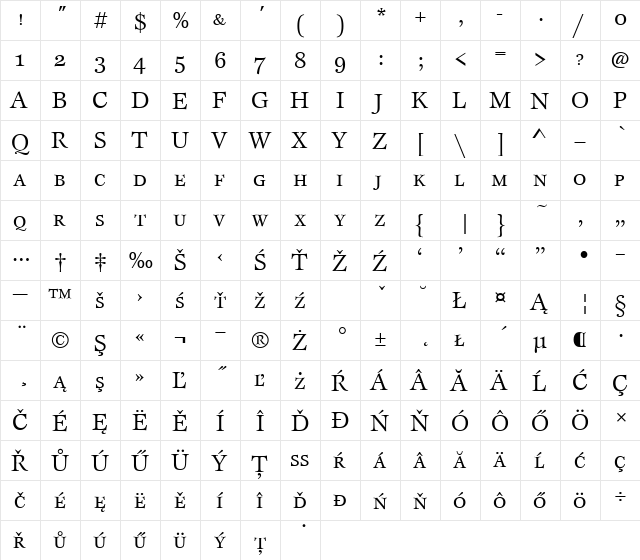
EspriItcSCTEEBoo Regular Font Preview
EspriItcSCTEEBoo Regular
EspriItcSCTEEBoo Regular Font Details
Design Context for EspriItcSCTEEBoo Typeface
EspriItcSCTEEBoo takes a measured approach to typography — its balanced proportions and neutral character make it a reliable workhorse for both digital and print work.